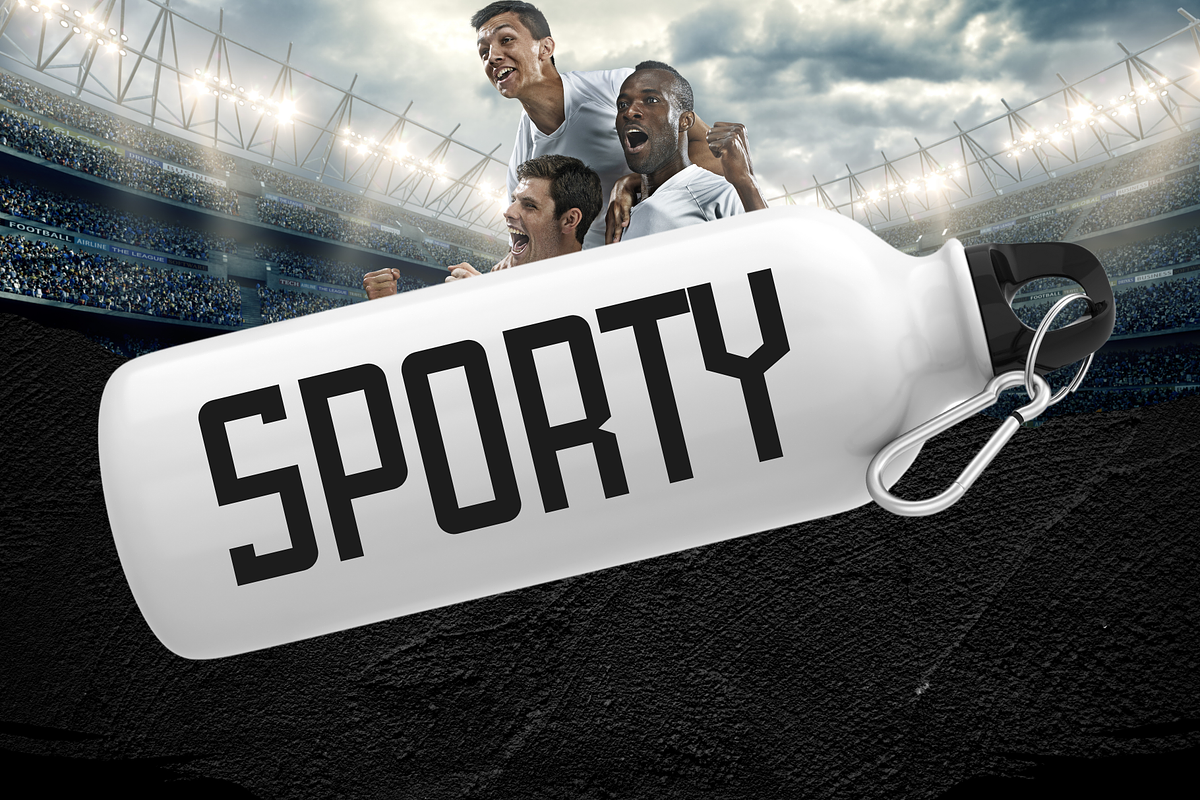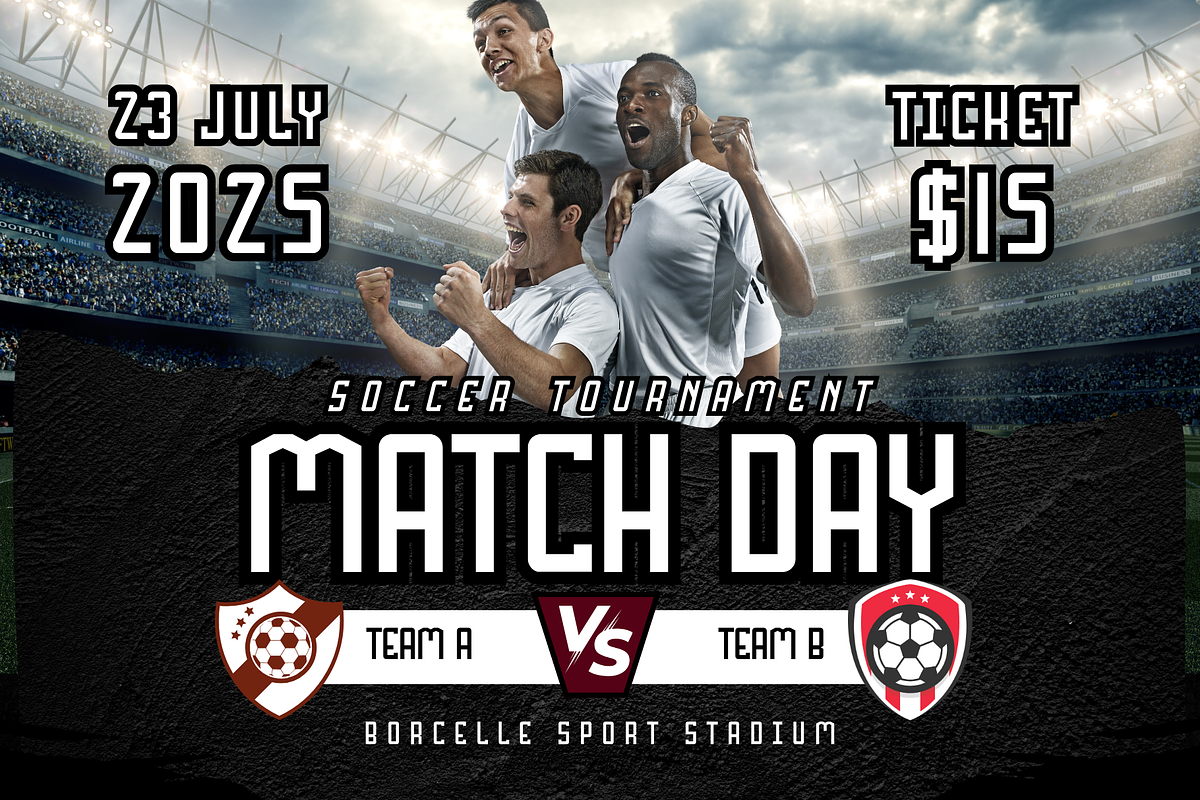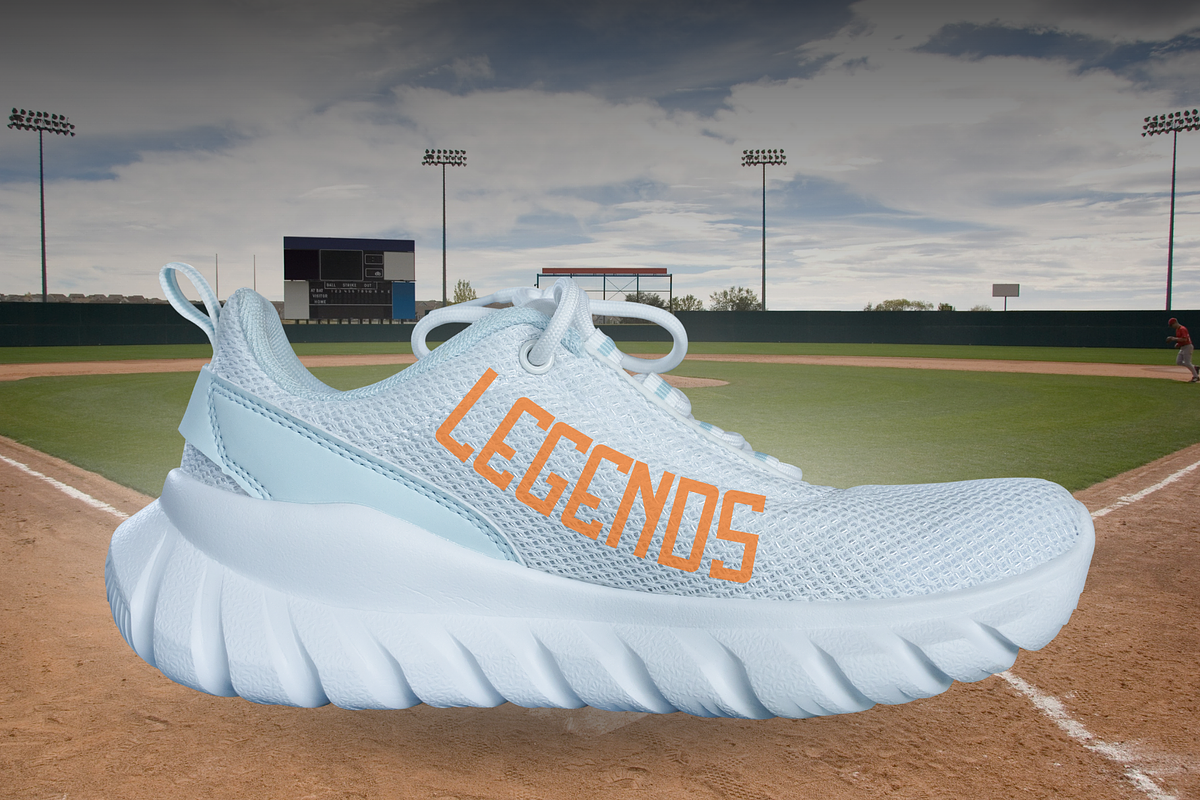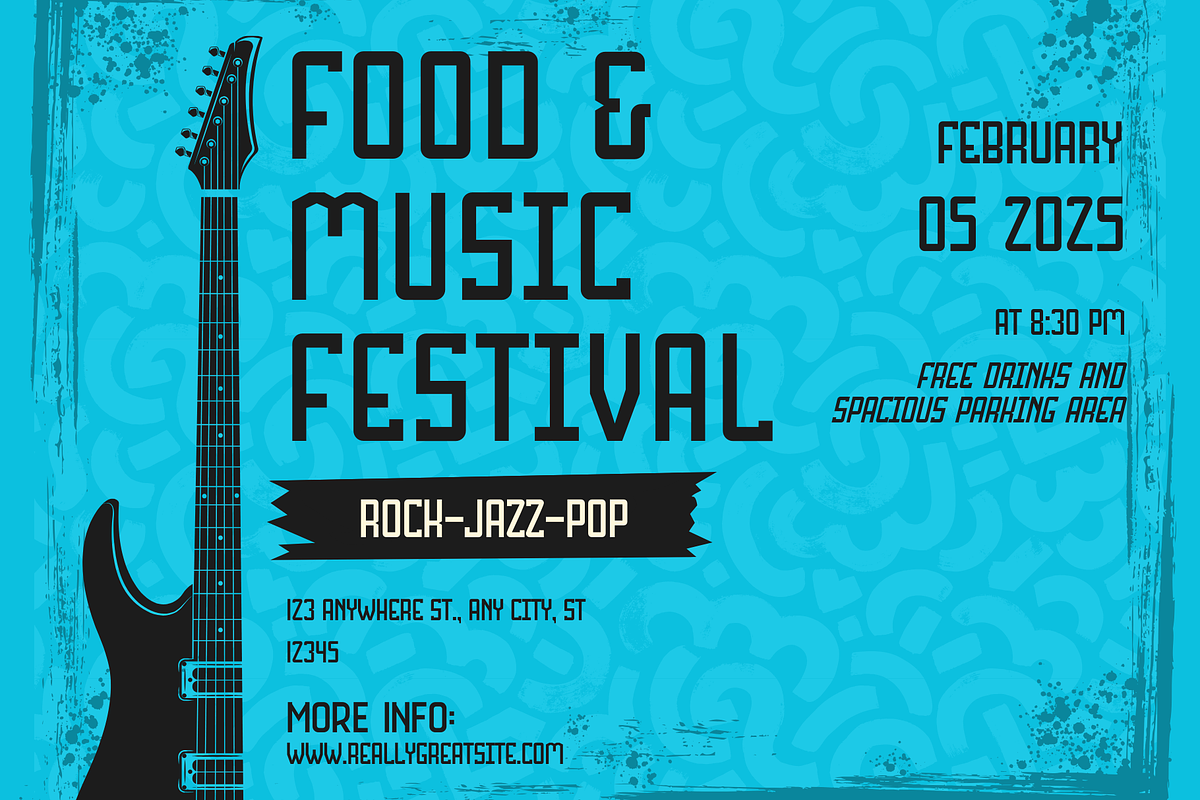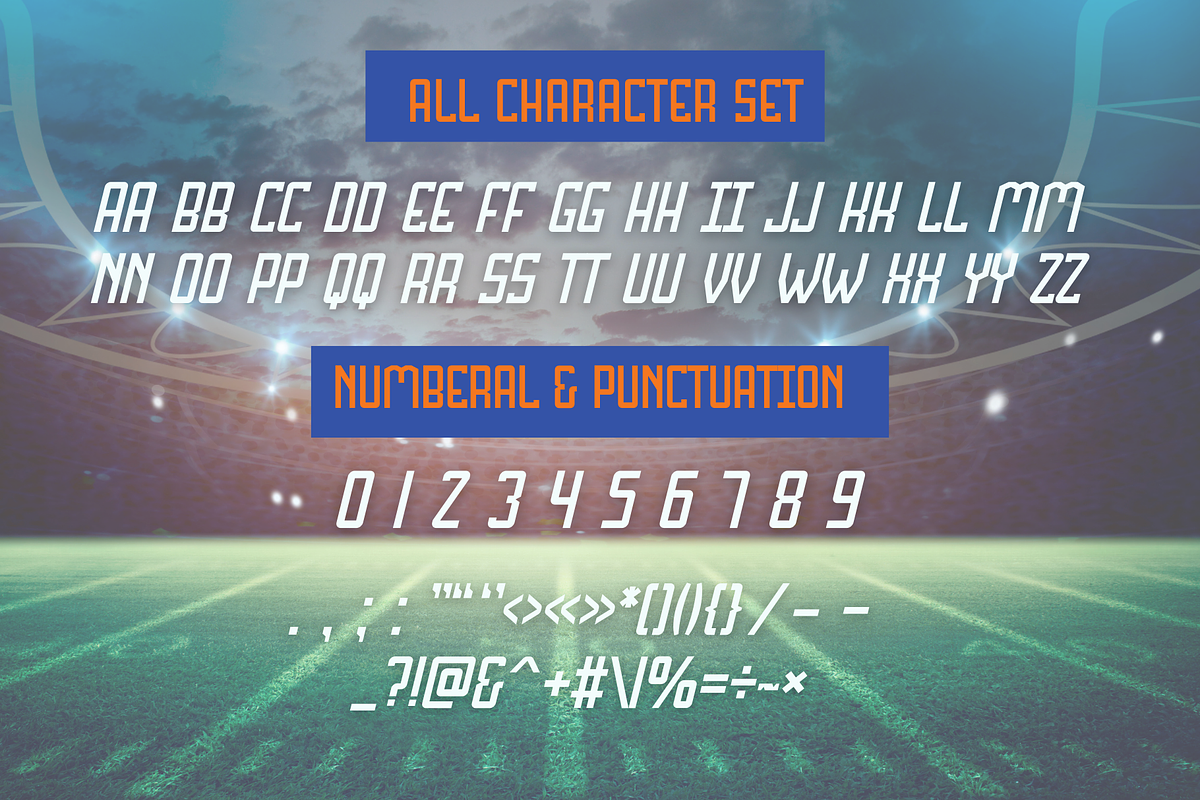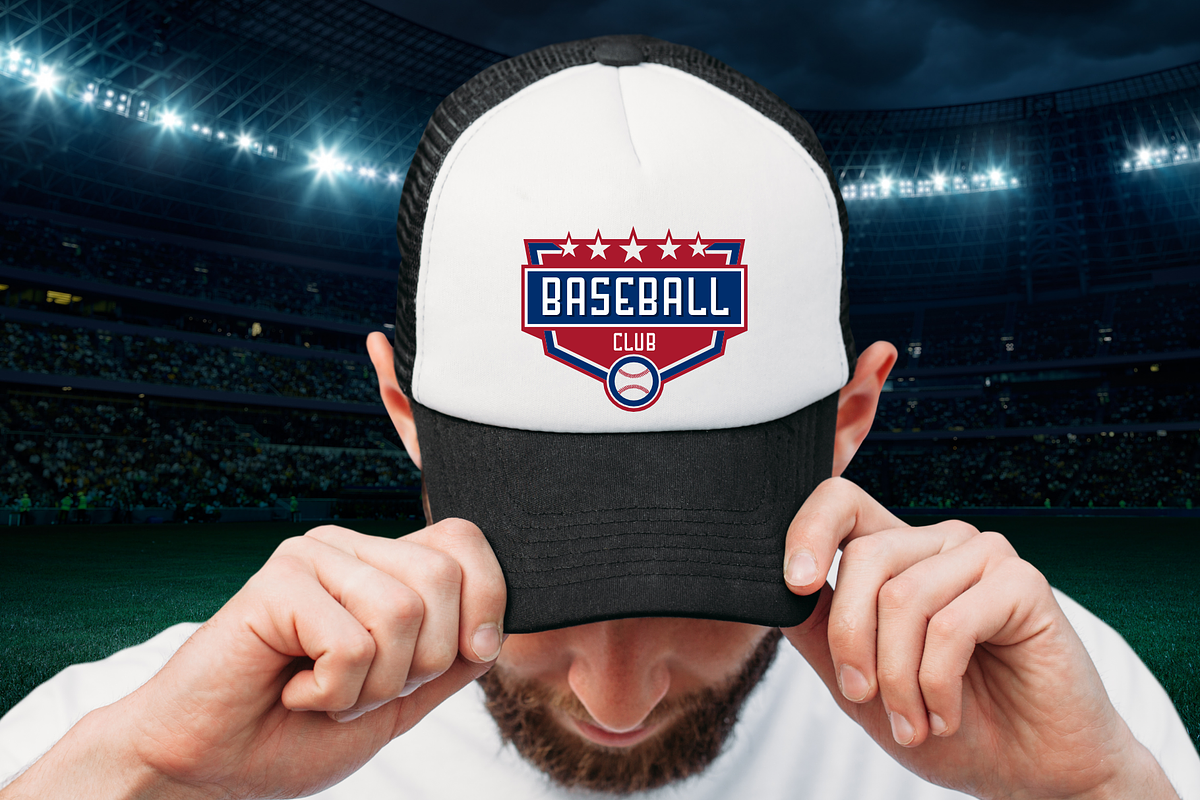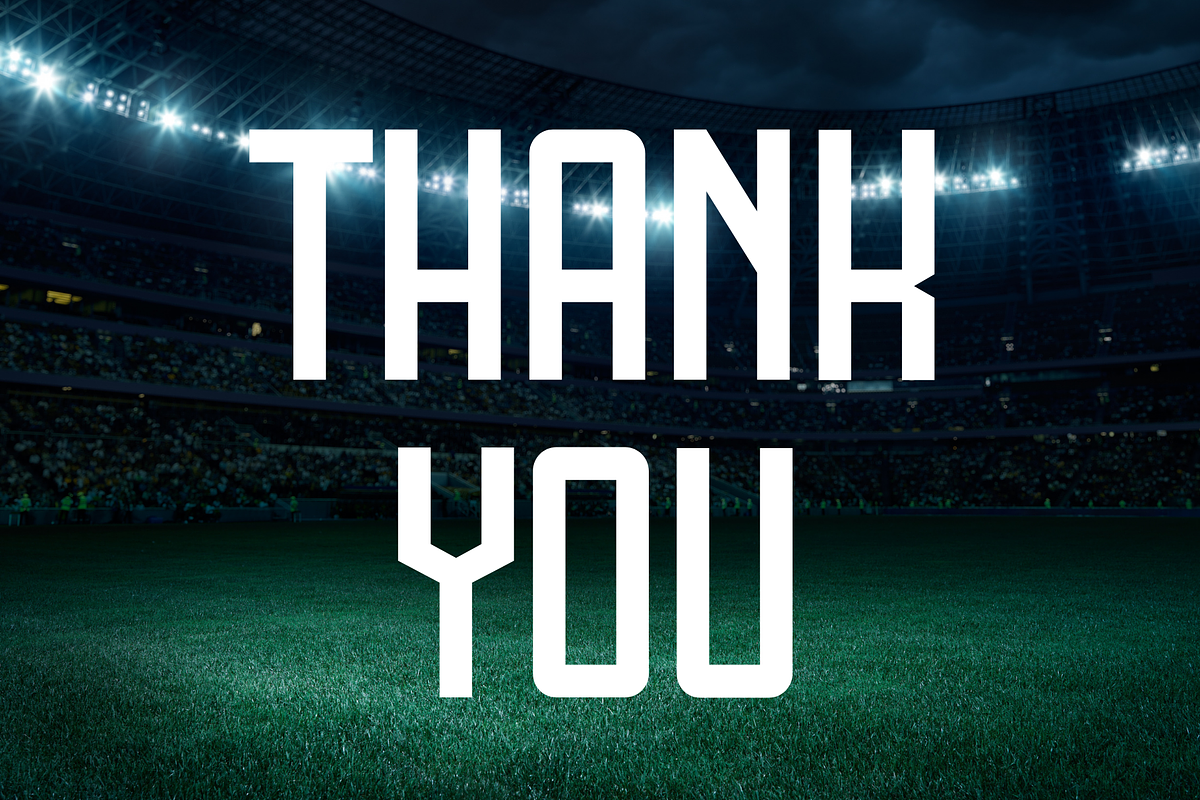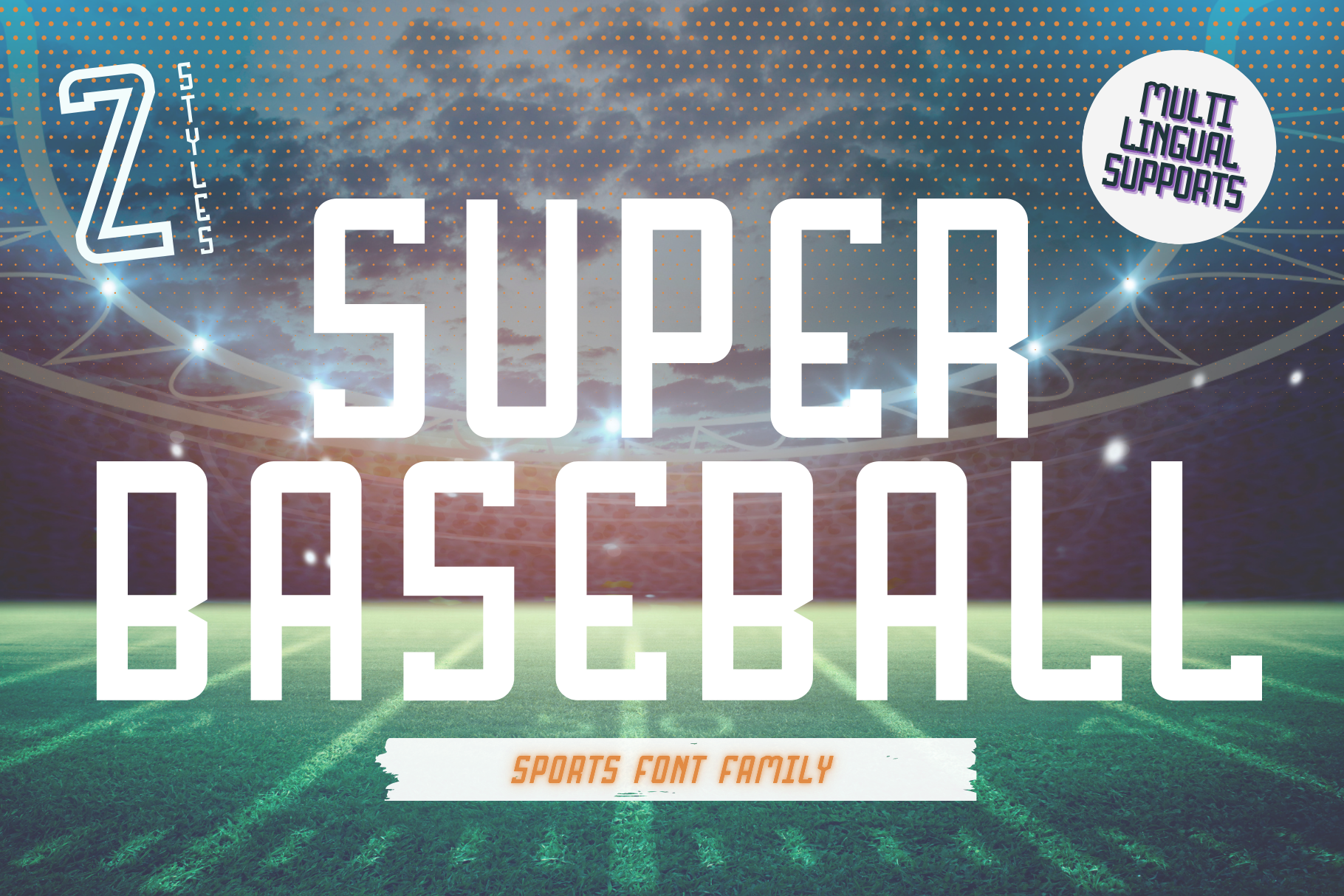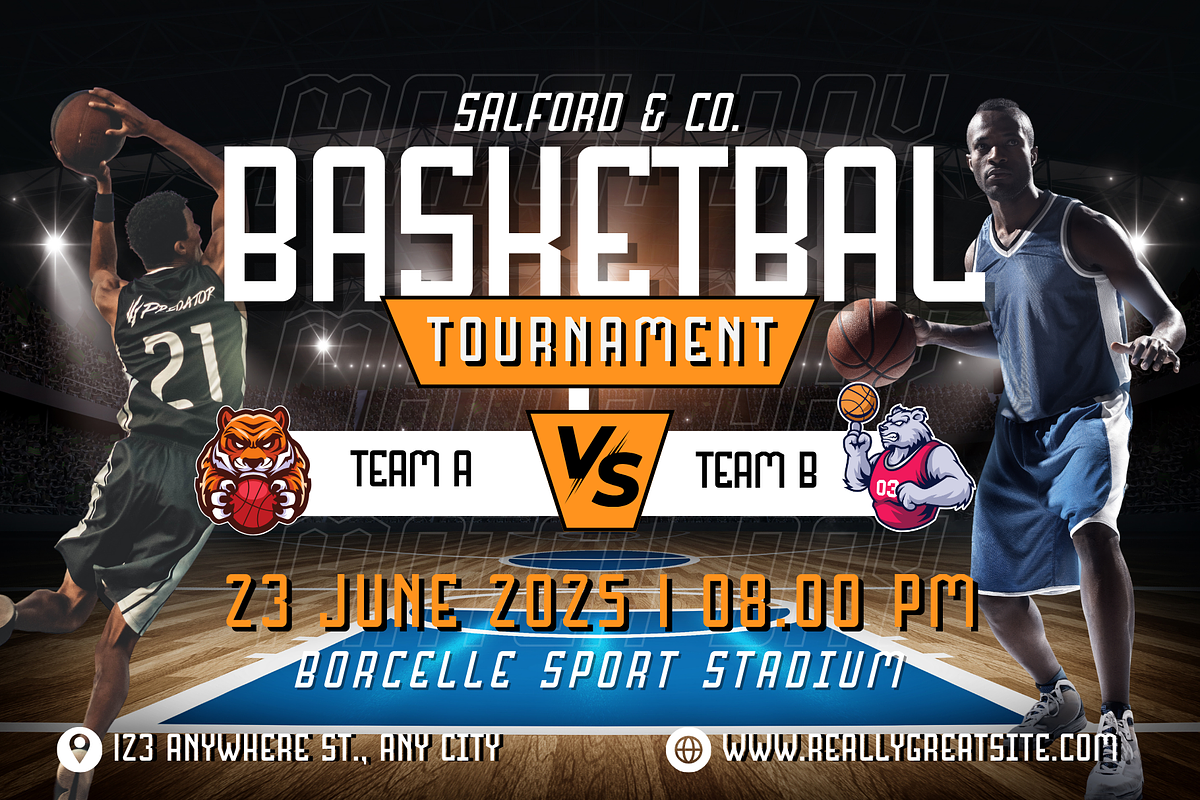
Super Baseball – Sporty font
Super Baseball – A Bold & Sporty Typeface Hit a home run with Super Baseball, a bold and energetic typeface inspired by classic baseball aesthetics. Designed to bring a sporty, vintage flair to your designs, this font is perfect for team jerseys, sports logos, event posters, and merchandise that needs a powerful and confident look.
Super Baseball comes in two versatile styles: ⚾ Regular – Strong, bold, and easy to read. ⚾ Italic – Adds a fast-paced, dynamic touch to your design.
Whether you're designing for a championship team, creating eye-catching signage, or crafting nostalgic apparel, Super Baseball delivers that authentic athletic vibe.